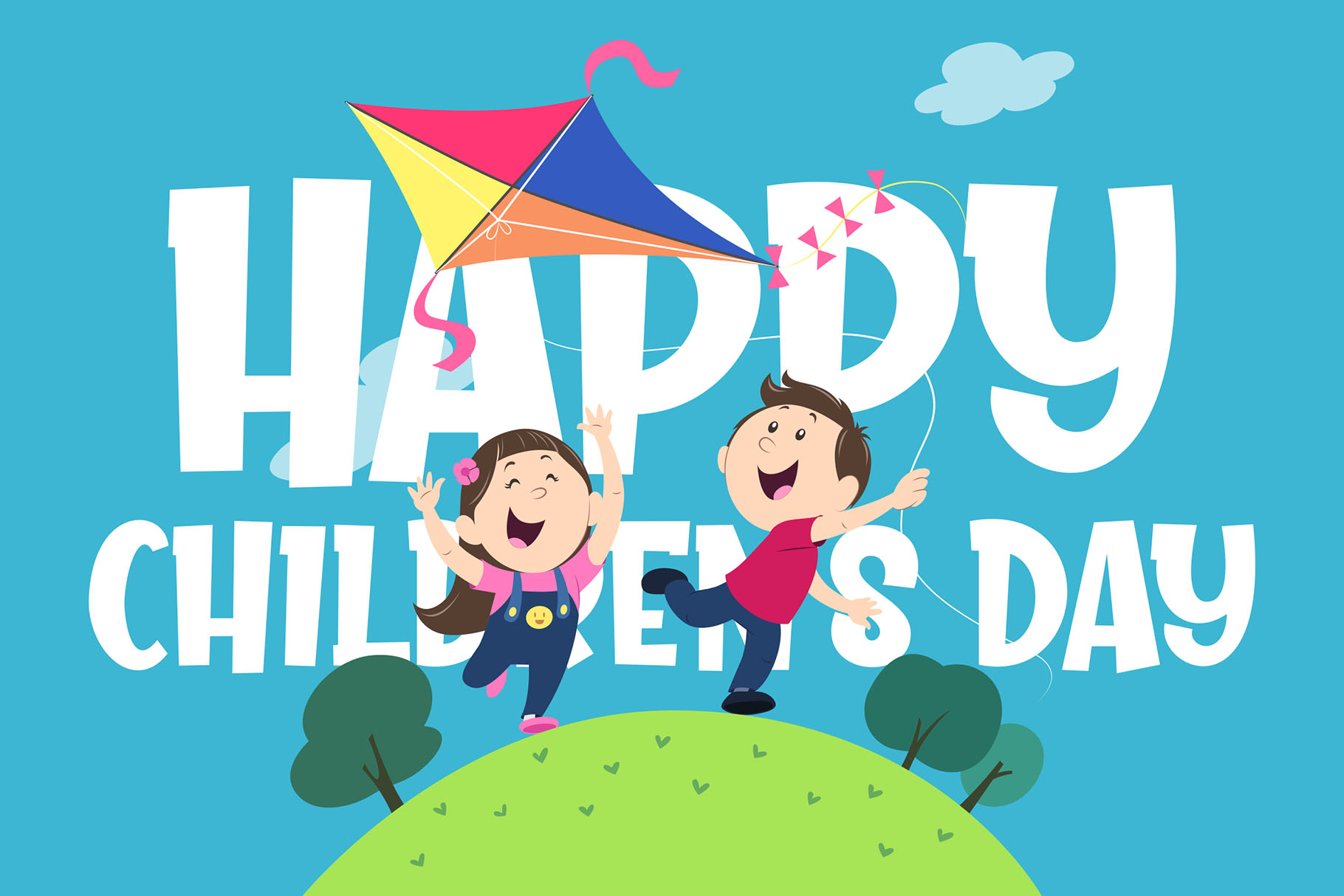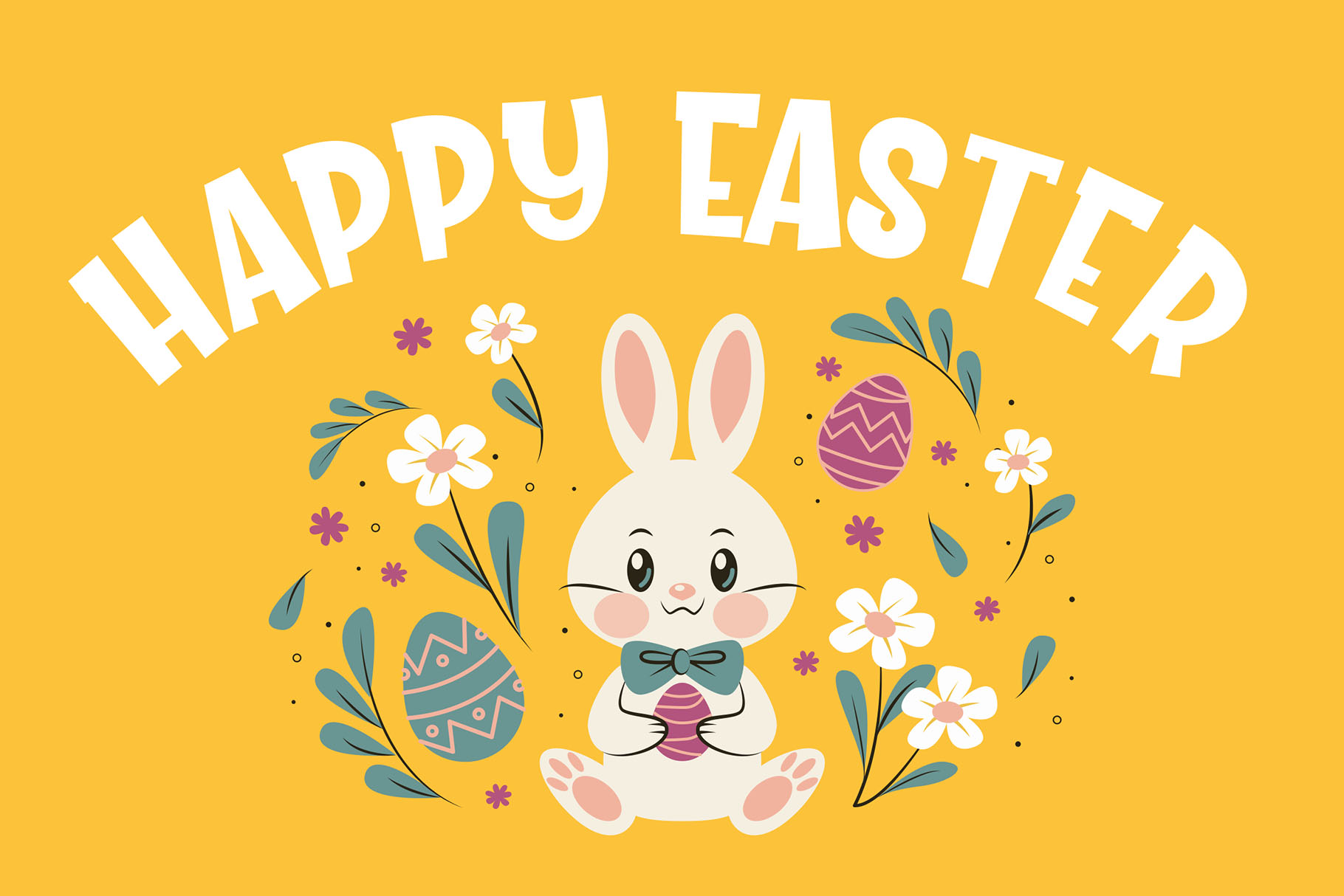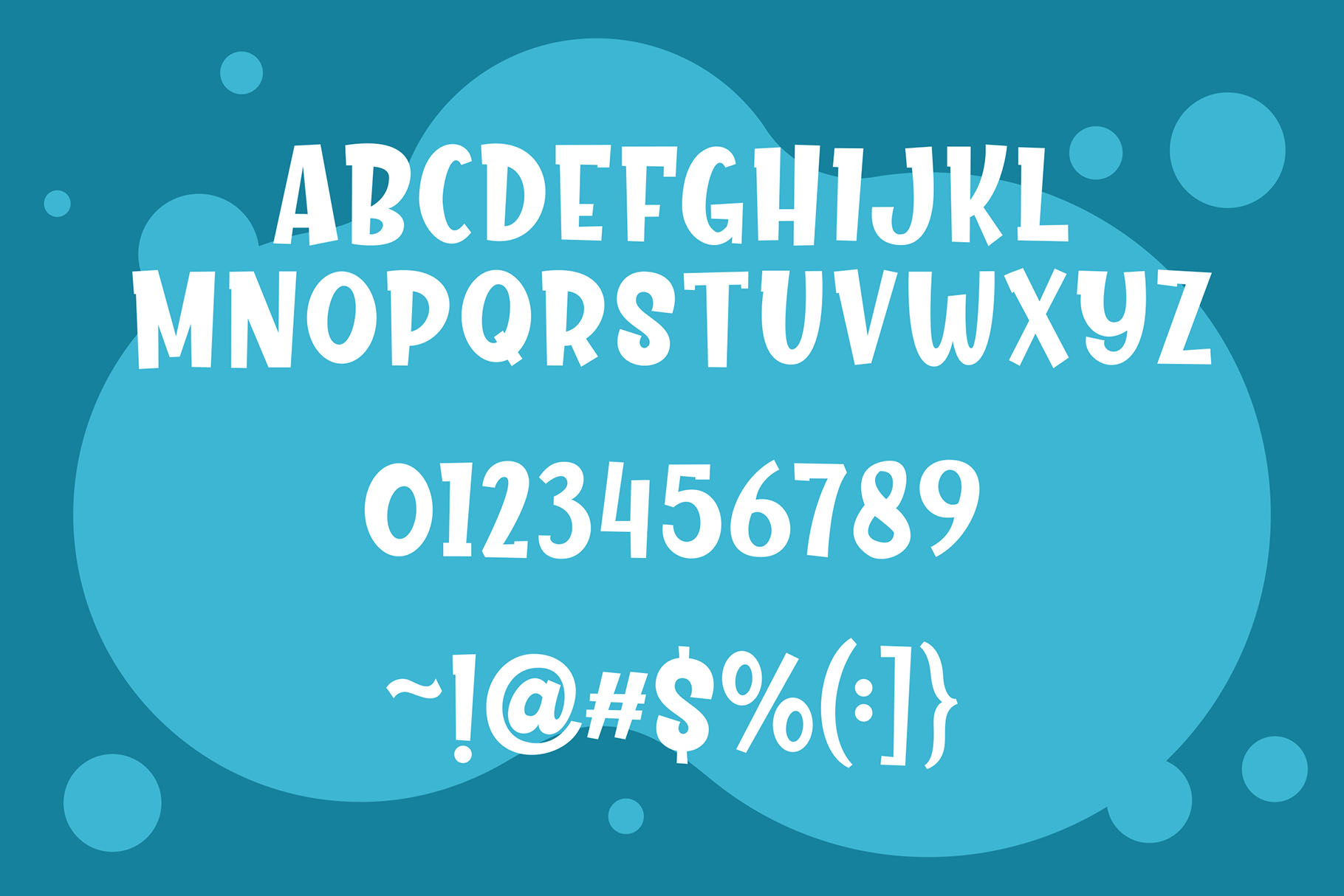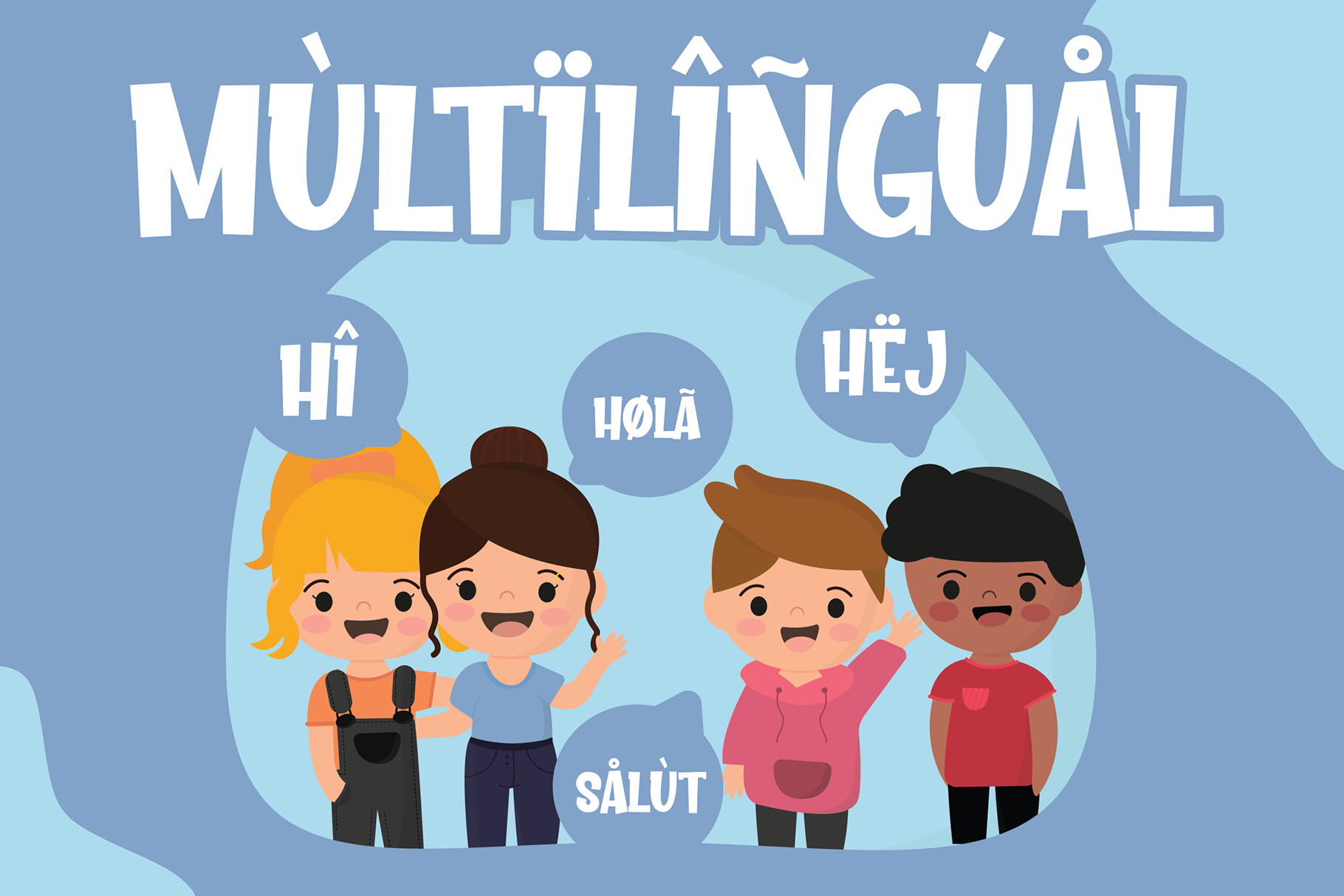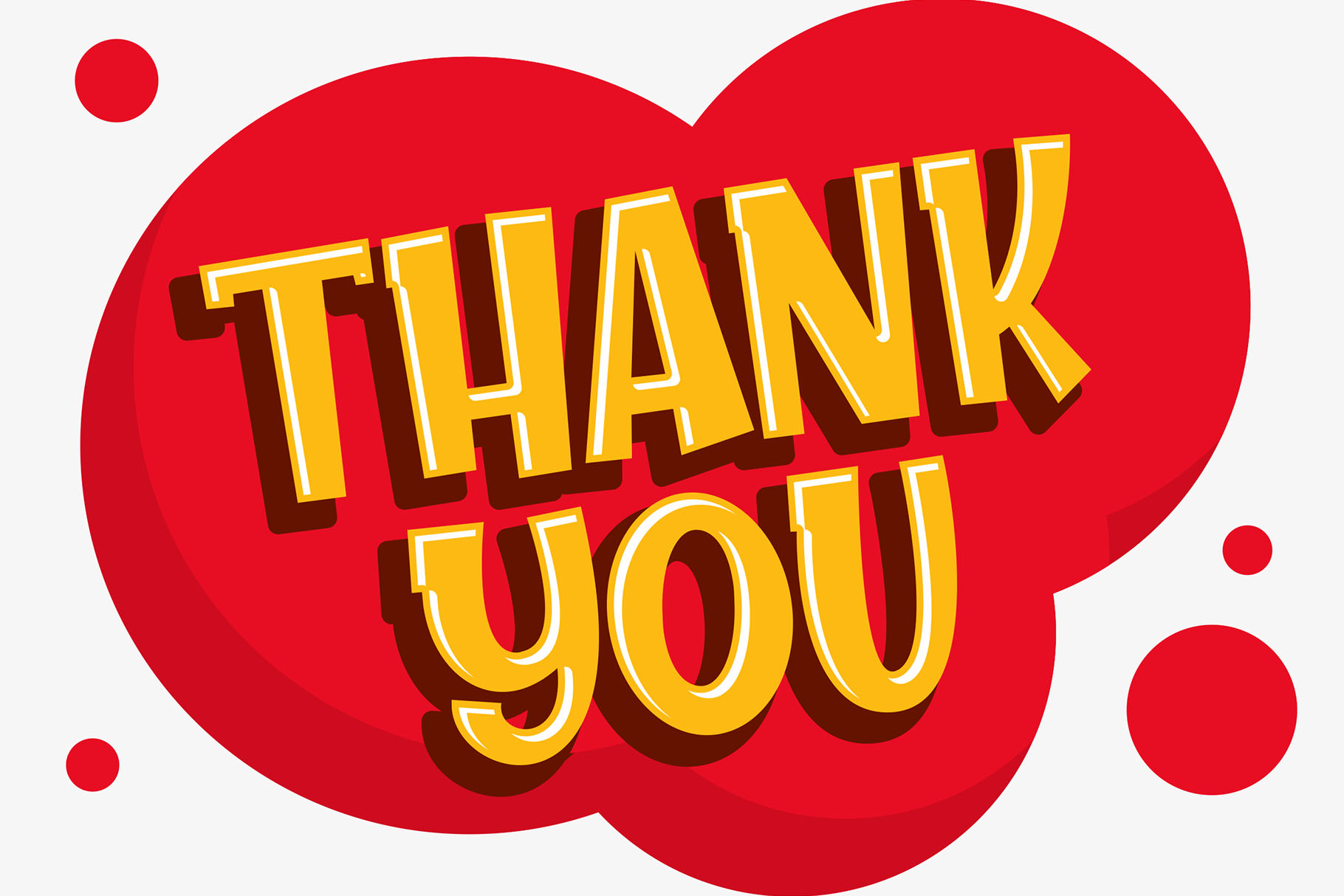
Kiddie Land
Say hello to Kiddie Land font
Made with love and joyful, it will make your design more beautiful, cute, fun and colorful.
• All-caps Font
• Numbers and Punctuation Marks
• Support Multilanguage